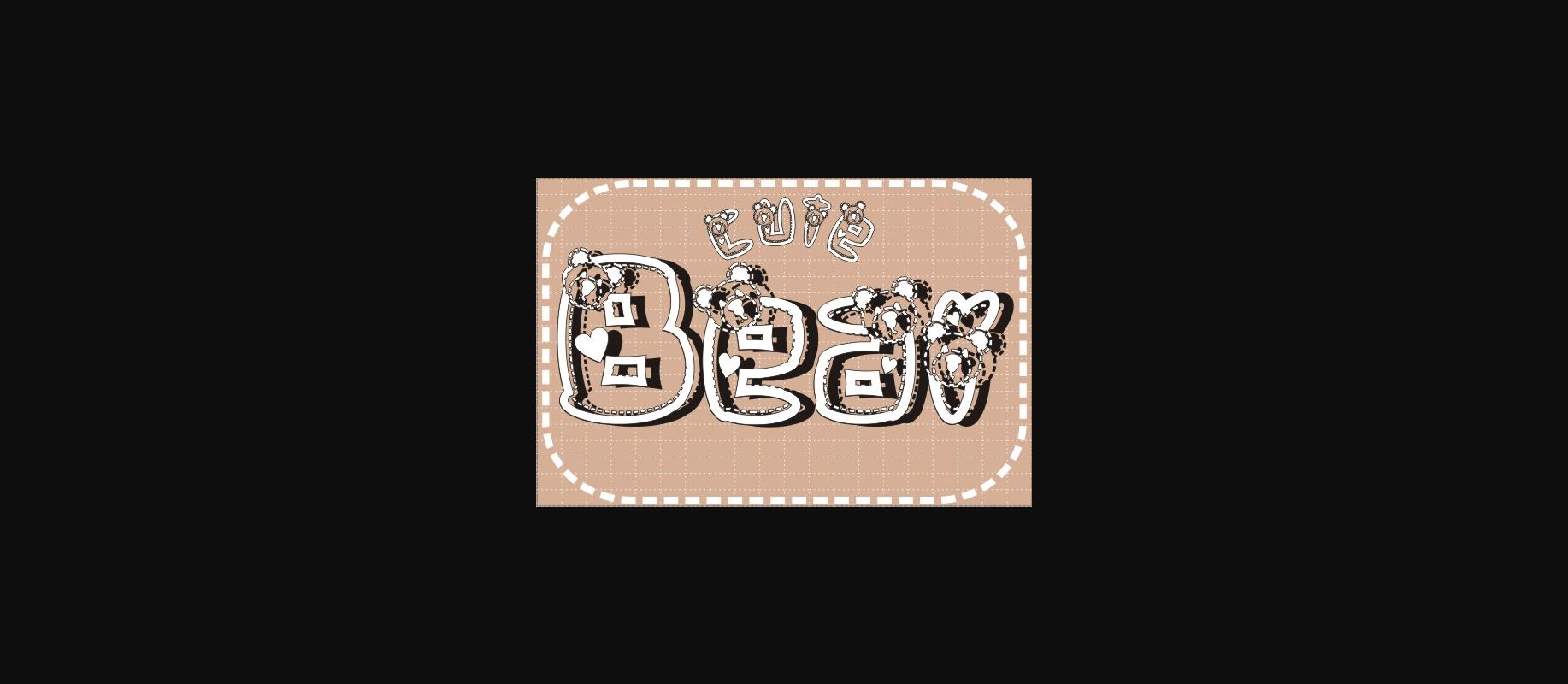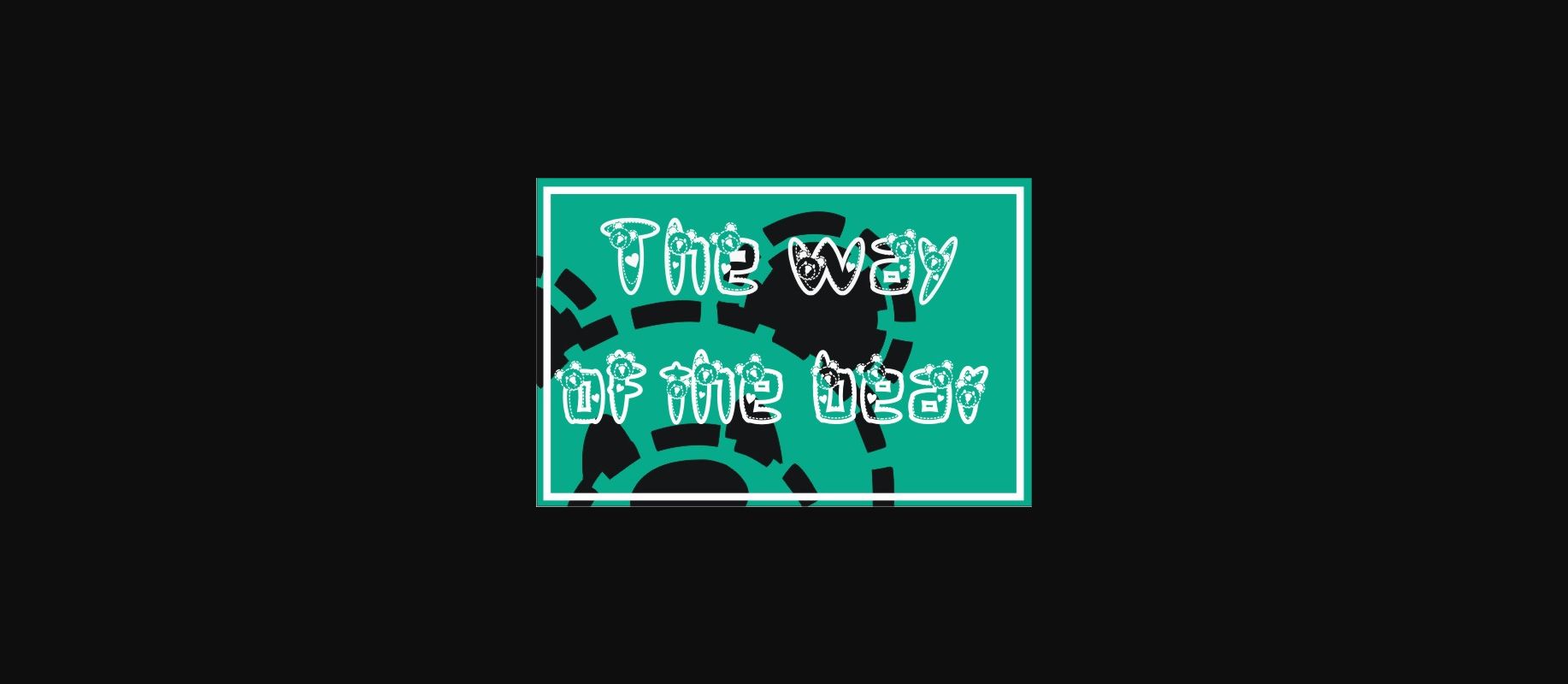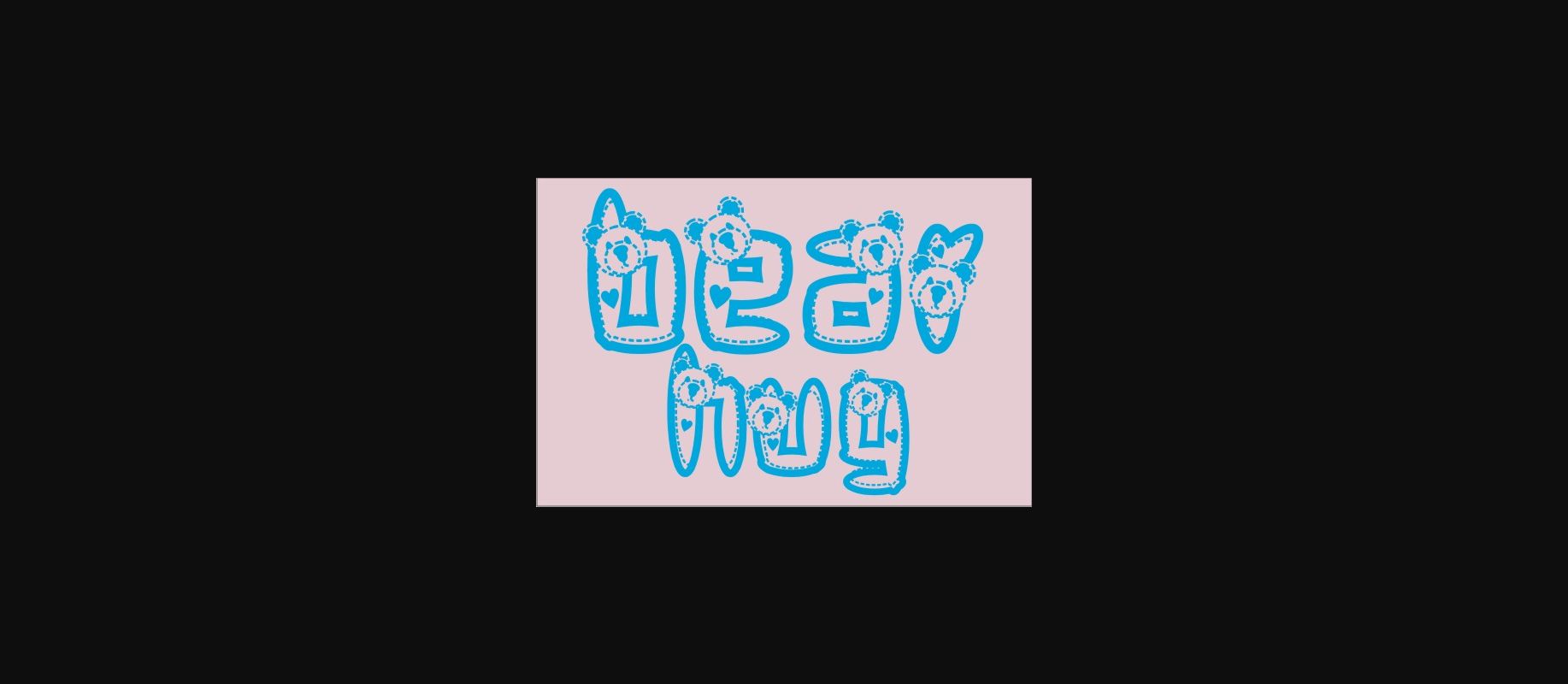
Bear Font
About Bear Font
Bear is a fun decorative font, each letter having a cute bear face stitchen on it. Get creative with its childlike playfulness, and use it to brighten up any kids and school project!